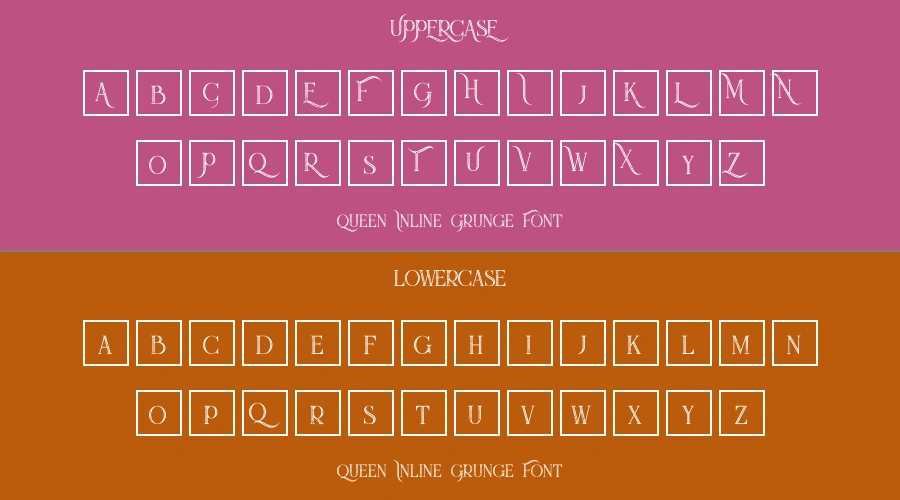
About Queen Inline Grunge Font
Designed with precision, Queen Inline Grunge Font merges straight stems with functionality in every character. This versatility makes it particularly effective for advertising campaigns, where reliability and cultural significance directly impact communication quality. Each letterform demonstrates meticulous craftsmanship.
Technical excellence shines through elements like organic forms and arbitrary fractions, enhancing typographic versatility. In campaign headers settings, Queen Inline Grunge Font proves its worth through superior personality transfer. The thoughtful execution of proportion and academic heritage ensures professional results.